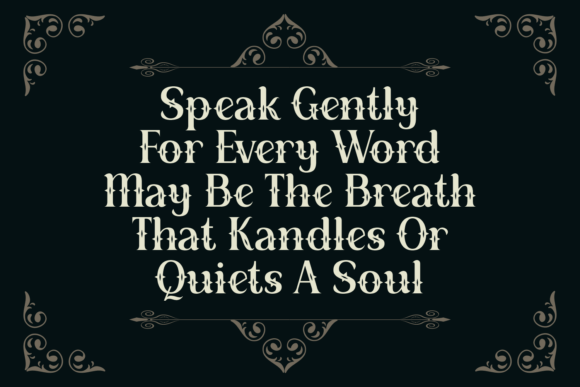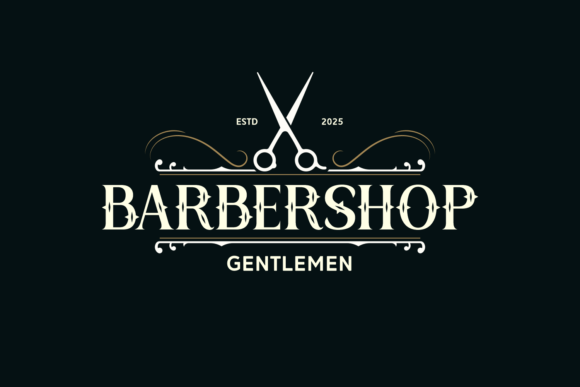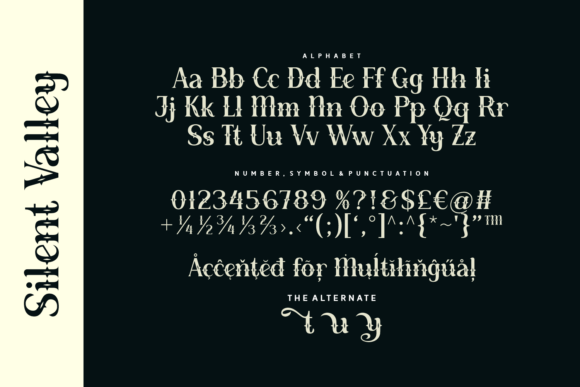
A promotional image for “Silent Valley,” a blackletter font. The font’s highly decorative and mystical style, featuring unique diamond details and flowing swashes, is perfectly suited for the beginning of the autumn “spooky season,” making it an excellent choice for fantasy, horror, and Halloween-themed projects.
Silent Valley Font